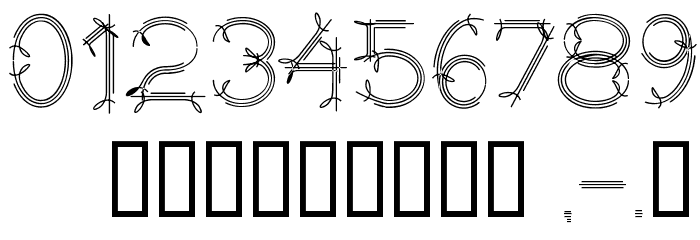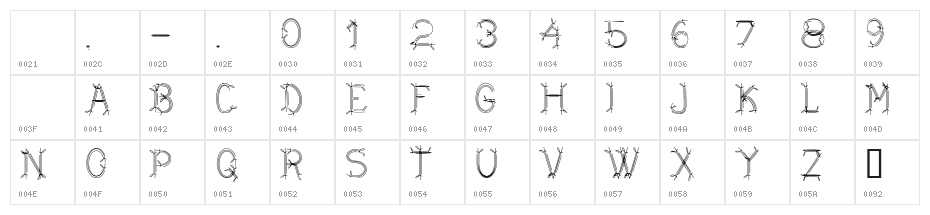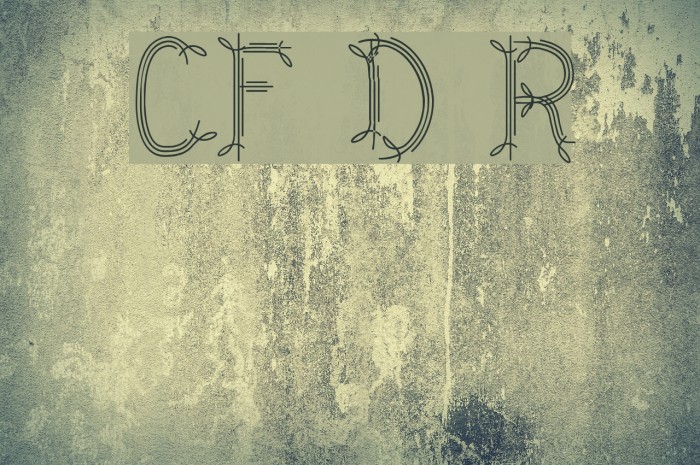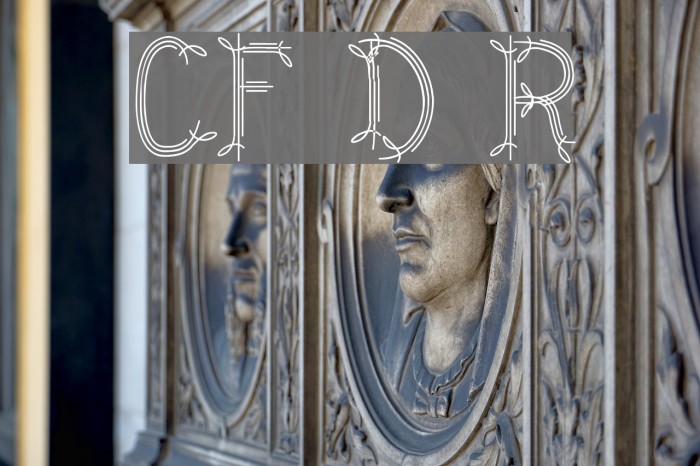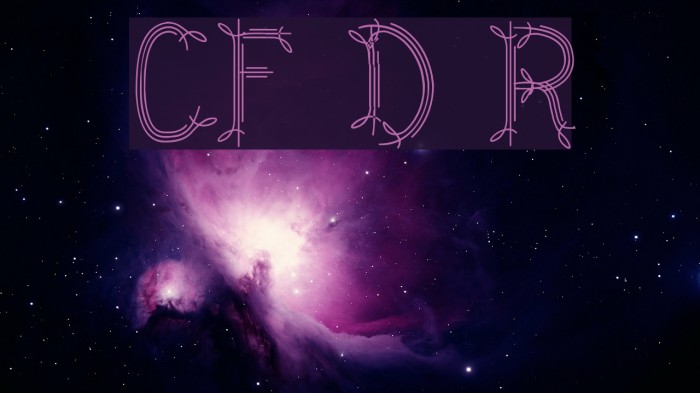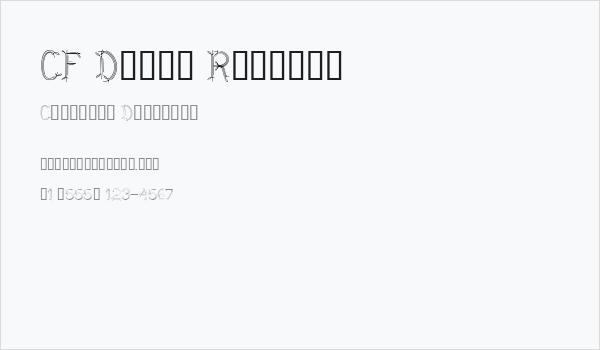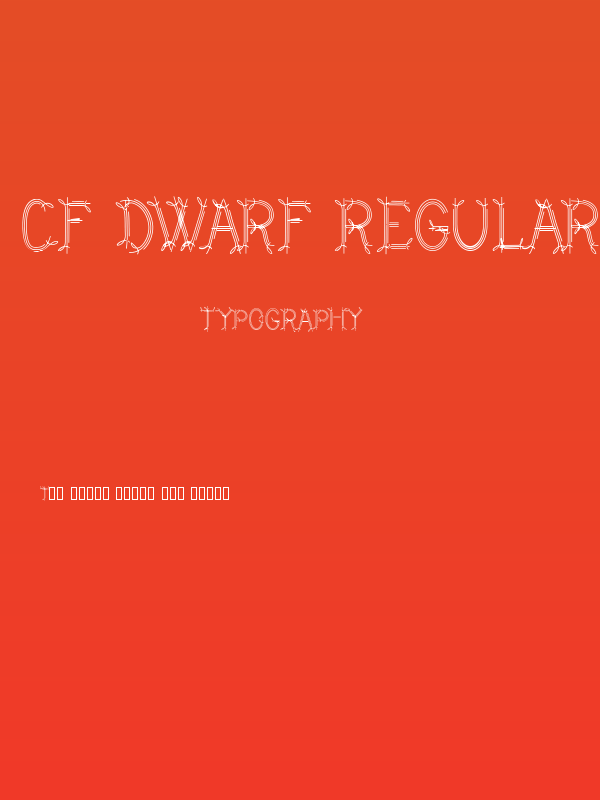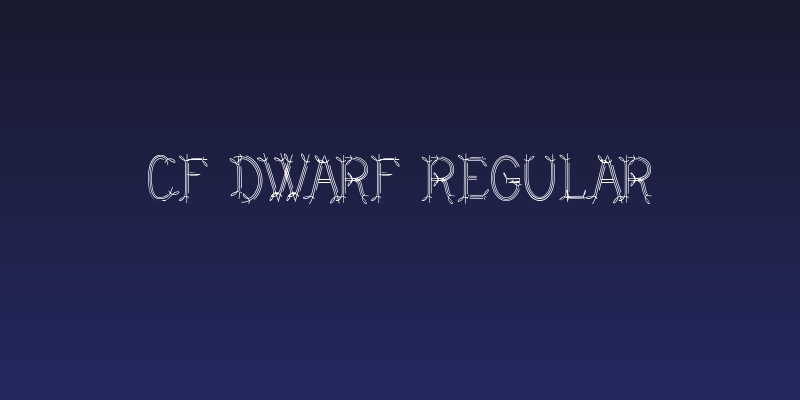
CF Dwarf Regular Font
CF Dwarf Regular Description
This font features a whimsical and decorative style, characterized by its playful and intricate design. Each letter is adorned with small, branch-like extensions that give it a unique, organic appearance. The strokes are consistent in thickness, providing a balanced look despite the elaborate details. The font maintains a sense of uniformity across both uppercase and lowercase letters, as well as numbers. It is visually engaging, making it suitable for creative projects that require a touch of fantasy or nature-inspired aesthetics. The special characters are also designed with the same attention to detail, ensuring a cohesive overall look.
| Proposed Projects | Ideal for fantasy-themed designs, children's book covers, greeting cards, and nature-inspired branding. |